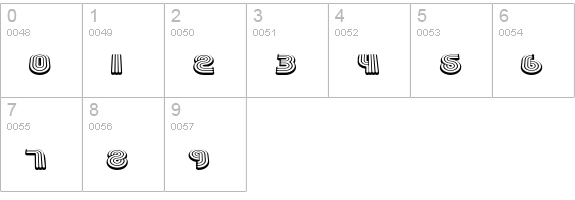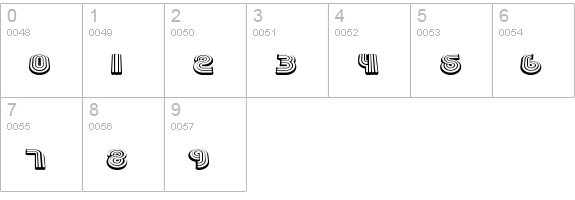
FgrooveEighty Font Details
FgrooveEighty font is a modern and stylish typeface that exudes a sense of energy and dynamism. Its sleek lines and bold curves make it perfect for projects that require a contemporary and edgy look. This font is ideal for conveying a sense of creativity and innovation in designs such as posters, logos, branding materials, and more. What sets FgrooveEighty font apart is that it is not only visually striking but also easily readable, making it versatile for a wide range of applications. Its unique design elements add a touch of personality and flair to any project, ensuring that your text stands out and leaves a lasting impression. Best of all, FgrooveEighty font is available for free download at FontsMarket.com. This means that you can easily access and use this font in your projects without any cost, making it a valuable resource for designers, creatives, and anyone looking to enhance their visual content. Experience the creativity and style that FgrooveEighty font brings to your designs today!